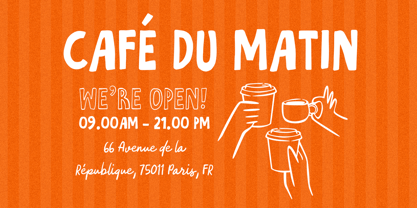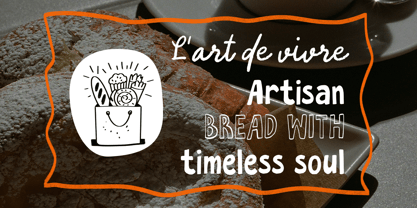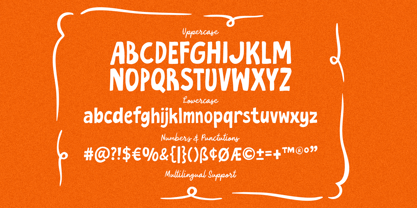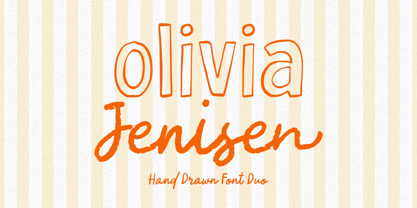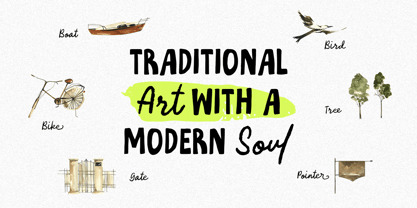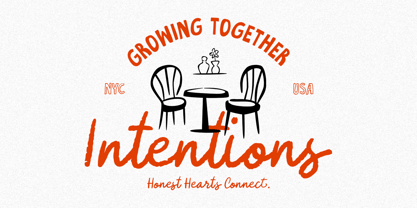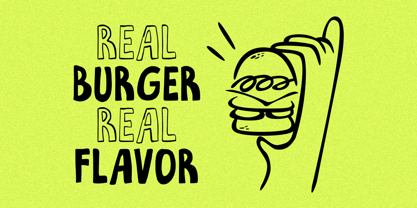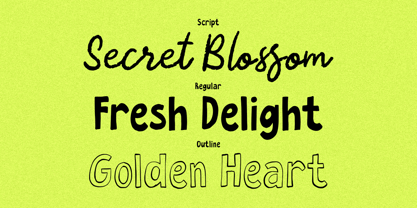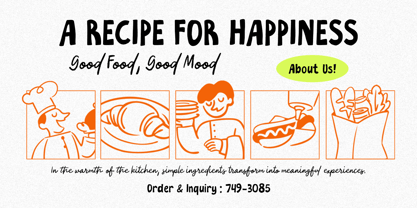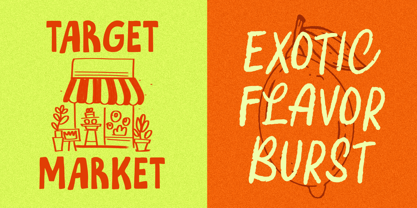
Olivia Jenisen
by Arterfak Project
The Olivia Jenisen Font Family was designed by Ahmad Ramzi Fahruddin and published by Arterfak Project. Olivia Jenisen contains 3 styles and family package options. More about this family
Olivia Jenisen is a charming font duo that pairs an expressive handwritten script with a playful hand-drawn sans serif available in solid and outline styles. The script flows naturally with organic brush texture and personality, while the sans adds a bold, fun, and slightly imperfect character that keeps designs feeling fresh and approachable. Complete with alternates and ligatures for a more authentic look, plus uppercase, lowercase, numbers, punctuation, and multilingual support. Perfect for café branding, packaging, wedding stationery, logos, quotes, and social media graphics. Two styles. Endless personality Fonts featured : Uppercase Lowercase Numbers & symbols Stylistic alternates Ligatures Multilingual support
Designers: Ahmad Ramzi Fahruddin
Foundry: Arterfak Project